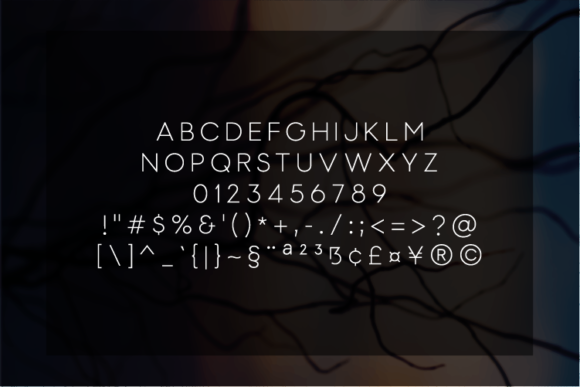
Discover the Elegance of Gabriely Extra Light Font
In the world of typography, fonts play a crucial role in conveying messages, expressing emotions, and enhancing the visual appeal of designs. Among the numerous fonts available, Gabriely Extra Light Font stands out for its clean, modern sans serif design, meticulous attention to detail, and versatility. In this article, we’ll delve into the features, benefits, and uses of Gabriely, exploring why it’s an essential asset for designers and crafters alike.
The Design Philosophy of Gabriely
Gabriely is a clean, modern sans serif typeface that has been passionately designed with great attention to detail. The creator’s goal was to craft a font that exudes simplicity, elegance, and timelessness. The result is a typeface that is both visually appealing and highly legible, making it perfect for a wide range of applications.
Key Features of Gabriely Extra Light Font
- Clean and Modern Design: Gabriely boasts a sleek, sans serif design that is both contemporary and sophisticated.
- Attention to Detail: The font’s creator has meticulously refined every aspect of Gabriely, ensuring a high level of typographic excellence.
- Simplistic and Timeless Look: Gabriely’s design ensures that any project it is used in will have a timeless, classic appearance that won’t go out of style.
- High Legibility: The font’s clean lines and carefully considered letterforms make it highly legible, even at small sizes.
Benefits of Using Gabriely Extra Light Font
For designers and crafters, Gabriely offers numerous benefits:
- Versatility: Gabriely can be used across a wide range of projects, from digital media and web design to print materials and crafting.
- Ease of Use: Its clean design and high legibility make it easy to use in various contexts, ensuring that your message is conveyed clearly.
- Timeless Appeal: Gabriely’s classic look ensures that your designs will remain stylish and relevant for years to come.
- Emotional Connection: The font’s elegant design can help create an emotional connection with your audience, enhancing the impact of your message.
Use Cases for Gabriely Extra Light Font
Gabriely’s versatility makes it suitable for a variety of projects:
- Digital Media: Use Gabriely in blog posts, social media graphics, and digital advertising to add a touch of elegance.
- Web Design: Its clean design and legibility make Gabriely an excellent choice for website content.
- Print Materials: Gabriely is perfect for brochures, flyers, posters, and business cards, adding a professional touch.
- Crafting and DIY Projects: Whether you’re creating handmade cards, scrapbooking, or working on other craft projects, Gabriely can add a sophisticated element.
Gabriely Extra Light Font is more than just a typeface; it’s a design essential that can elevate any project. Its clean, modern sans serif design, meticulous attention to detail, and timeless appeal make it a valuable asset for designers and crafters. Whether you’re working on digital projects, print materials, or crafting, Gabriely is sure to enhance your designs with its elegance and sophistication.
Incorporating Gabriely into your design toolkit can help you create visually appealing, professional-looking projects that stand out. Its versatility, ease of use, and emotional resonance make it an excellent choice for anyone looking to add a touch of class to their work. Discover the elegance of Gabriely Extra Light Font today and take your designs to the next level.